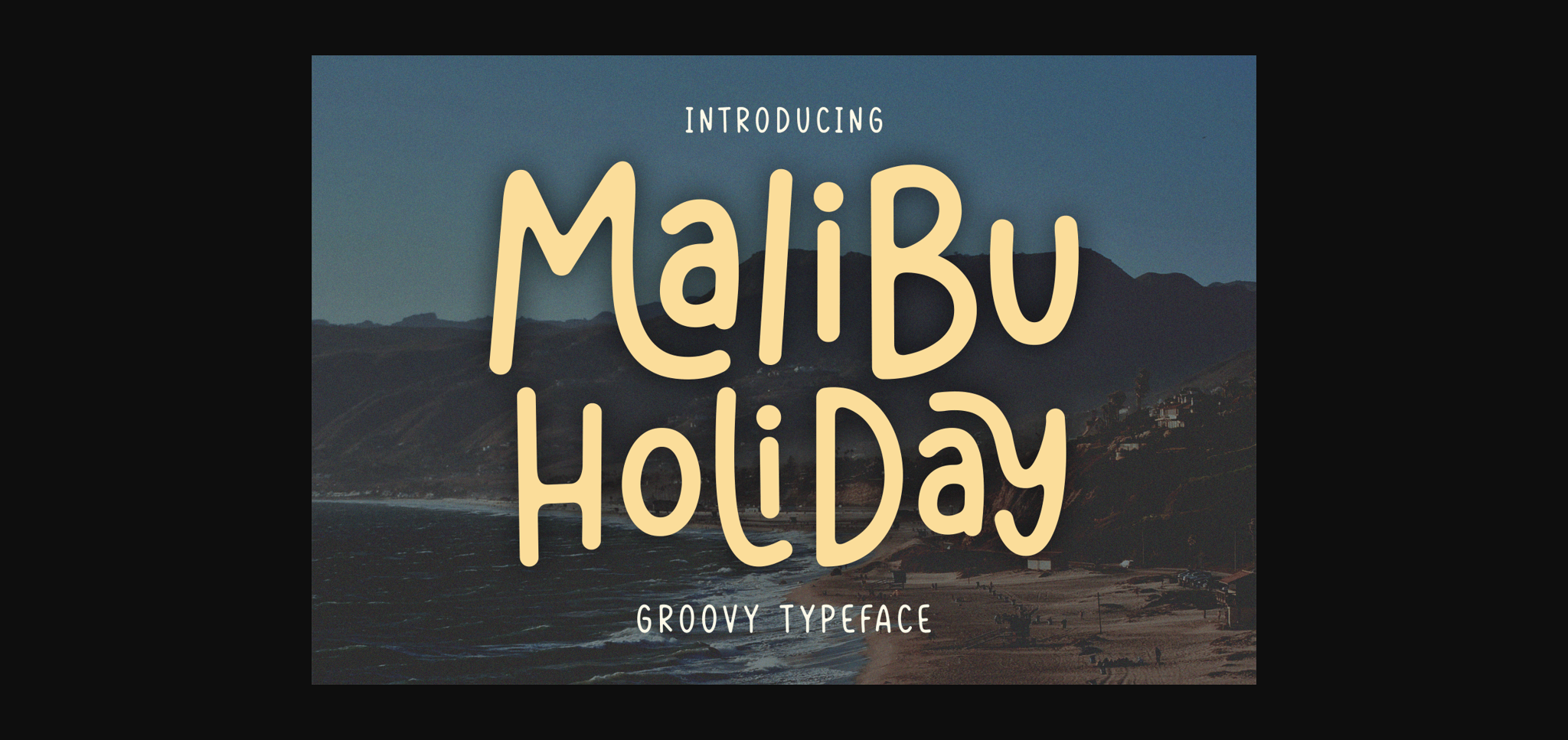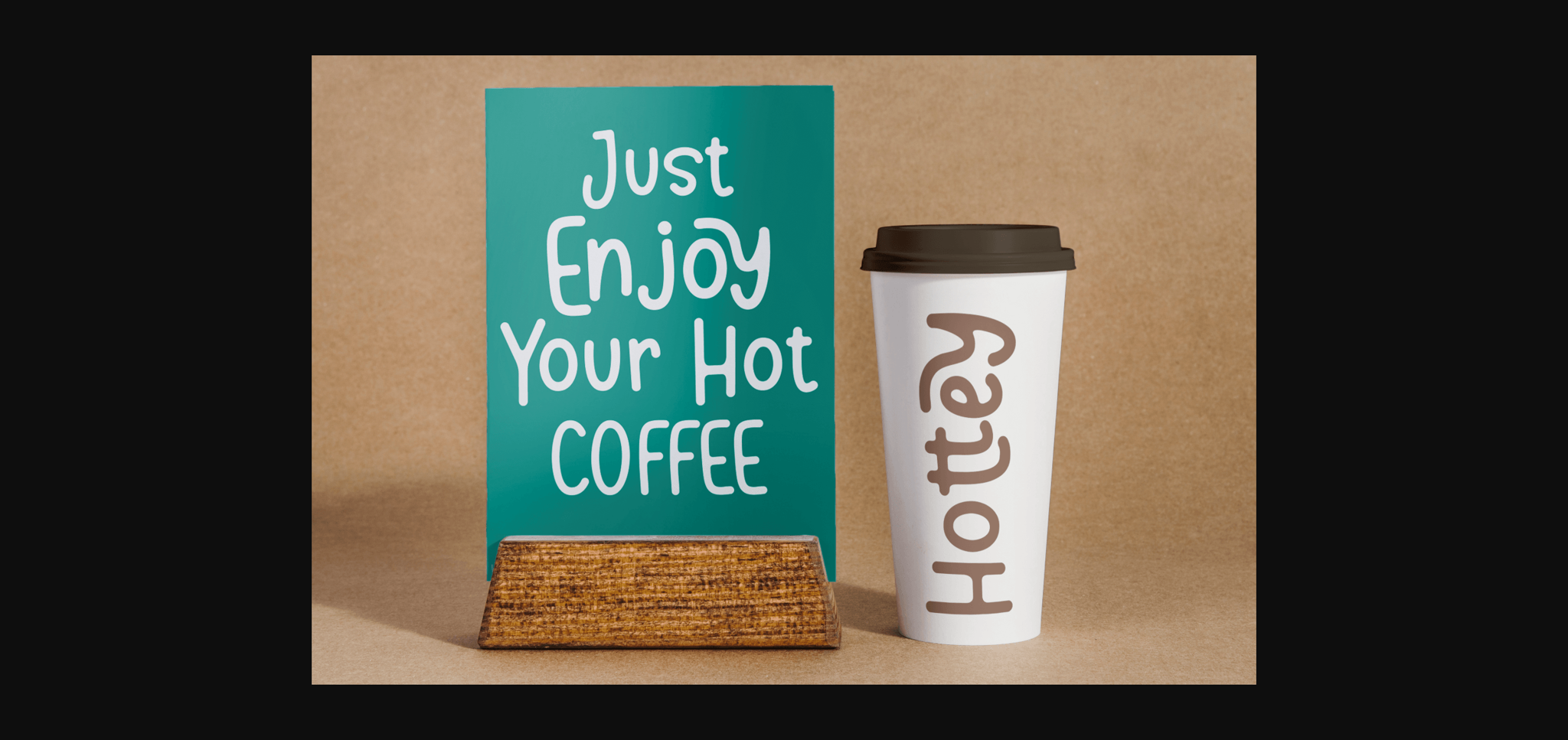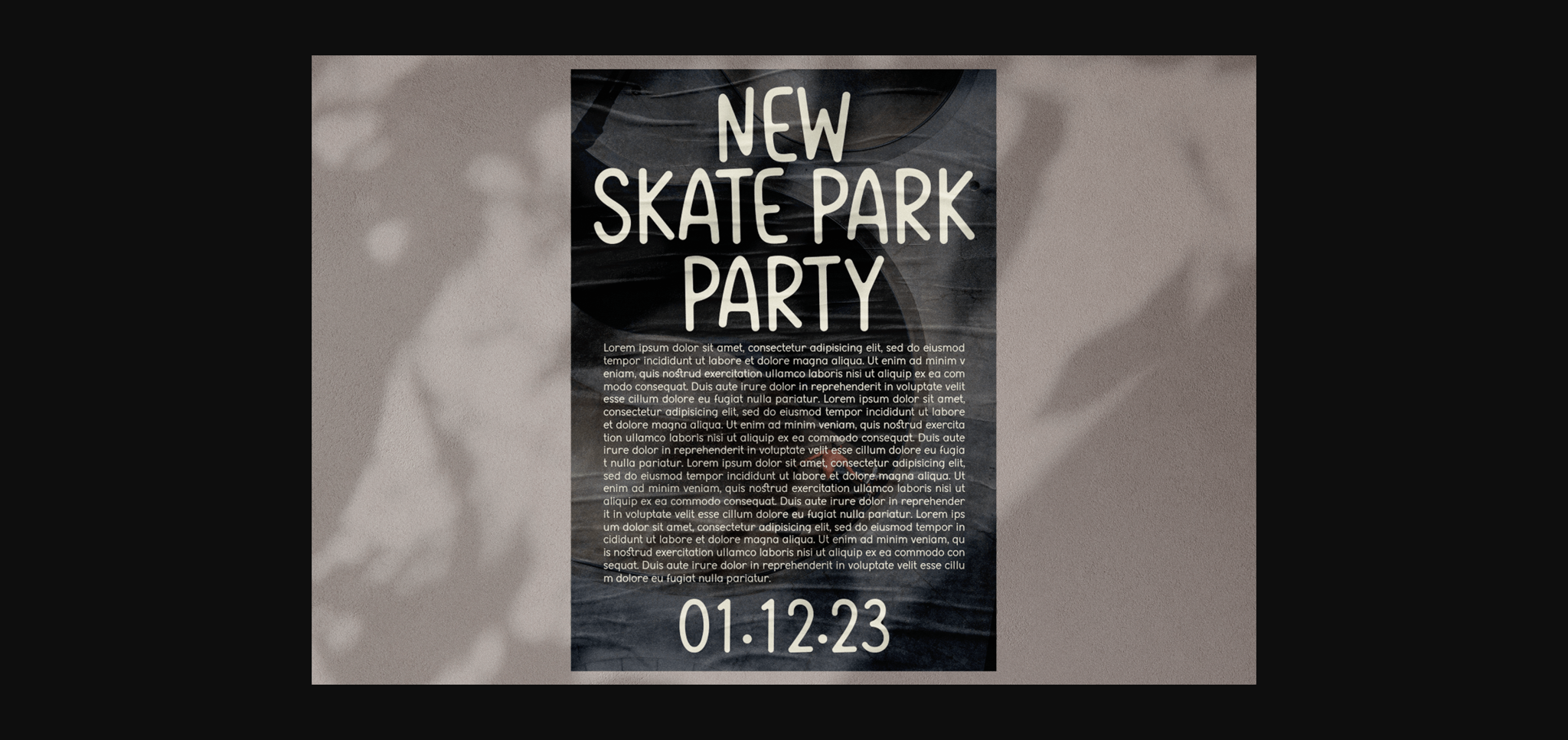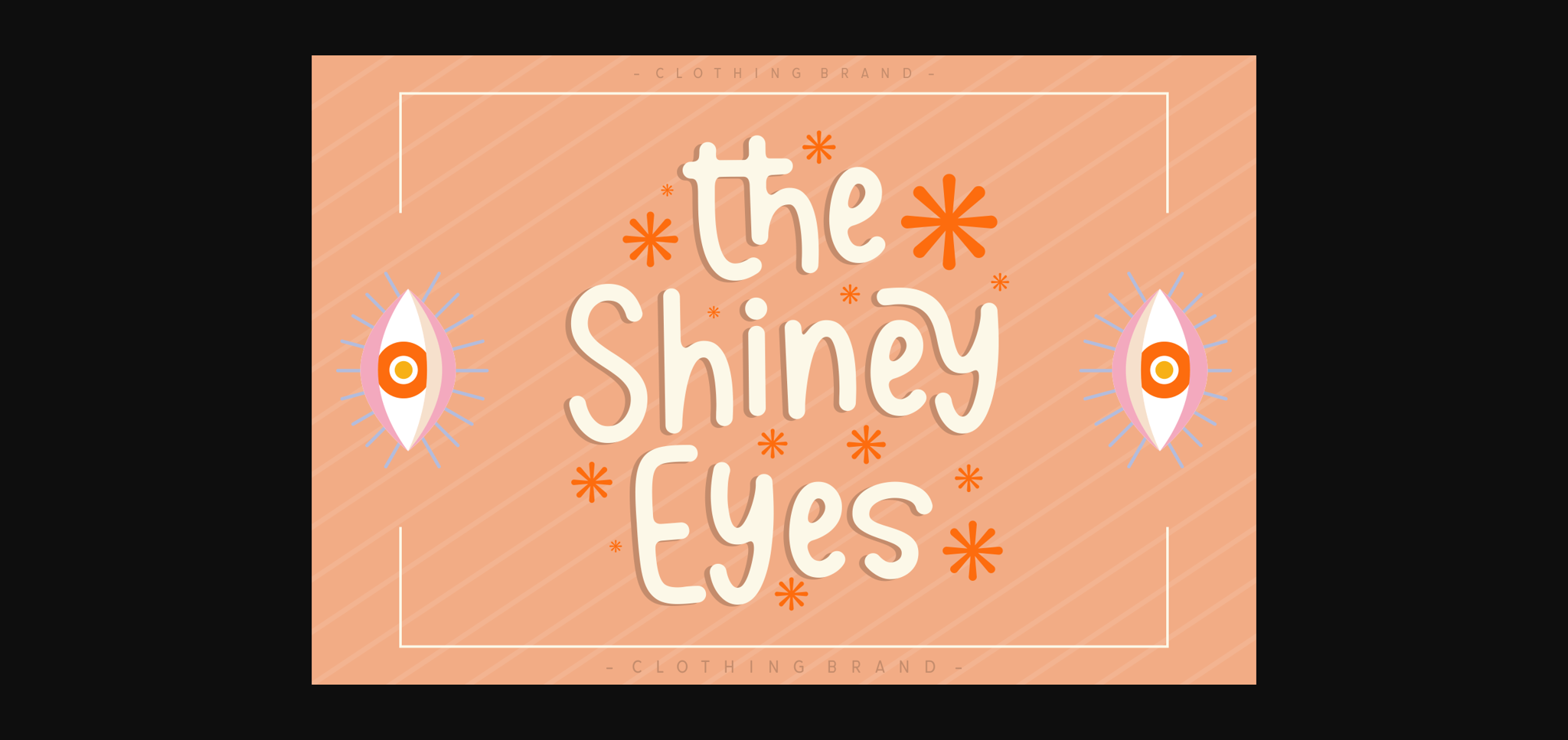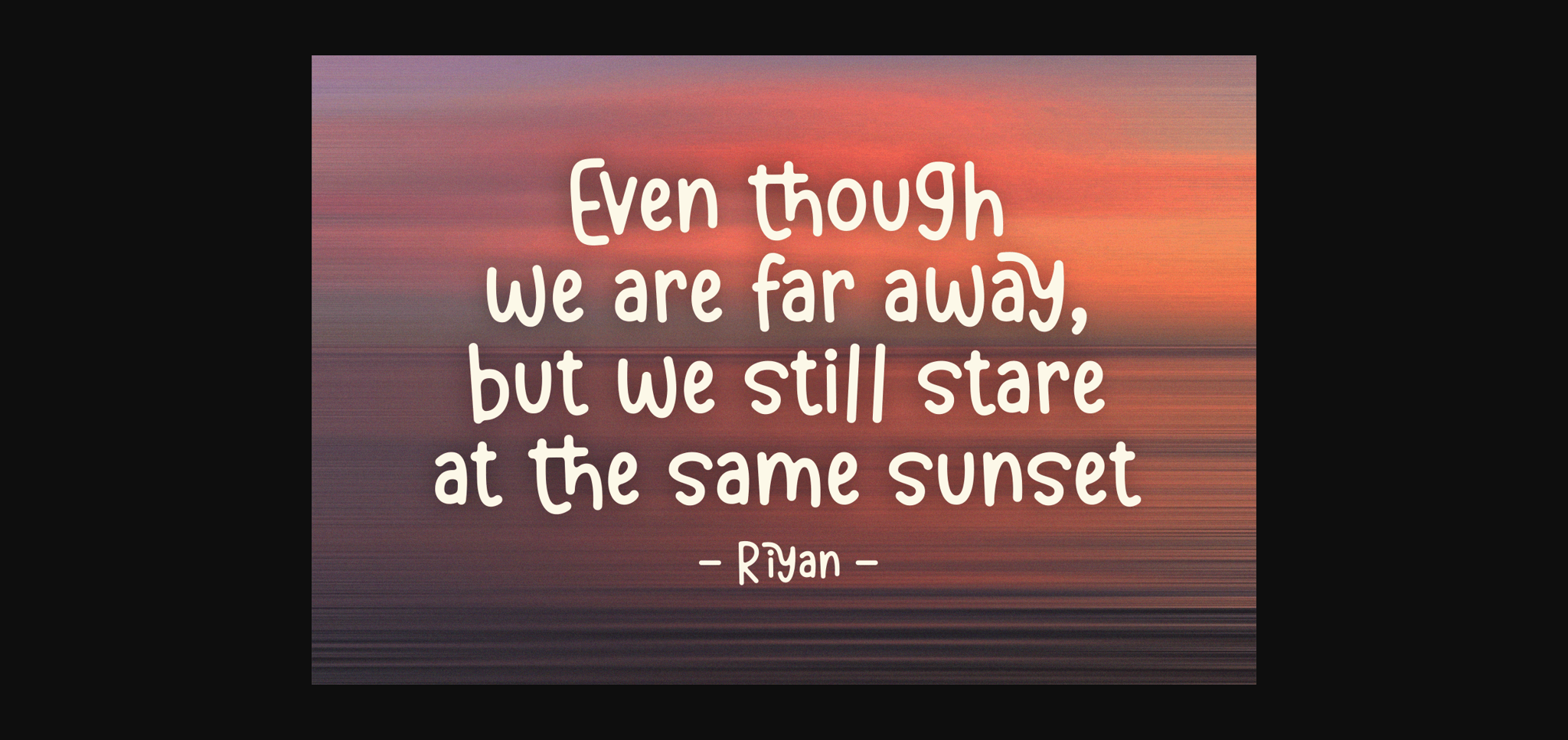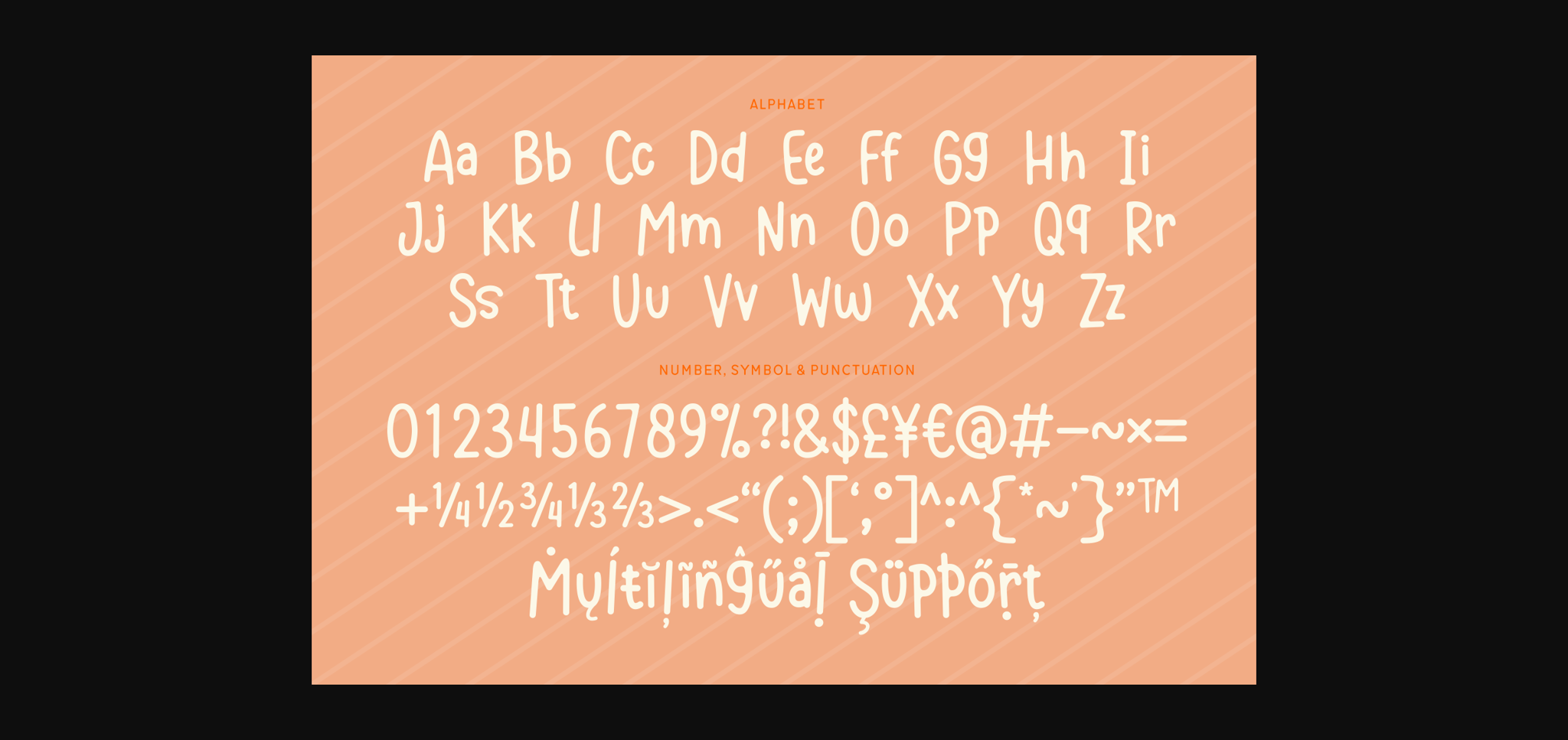
Malibu Holiday Font
About Malibu Holiday Font
Malibu Holiday is a fabulous sans serif font. With bold and clean yet playful characters, this font is suitable for various design projects. You can use it for branding, web graphics, logos, posters, fabric prints, and many more.